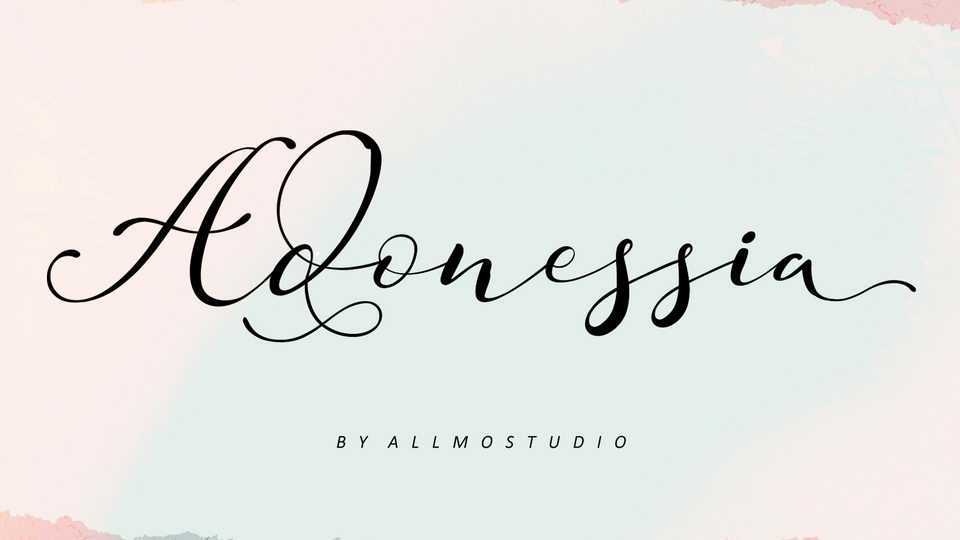
Download Adonessia font, a beautiful modern script with unique style, designed by handwriting, inspired by fountain pen and classic script. Adonessia font is very suitable for greeting cards, invitations, branding materials, business cards, quotes, posters, and more!
Designer: Allmo Studio